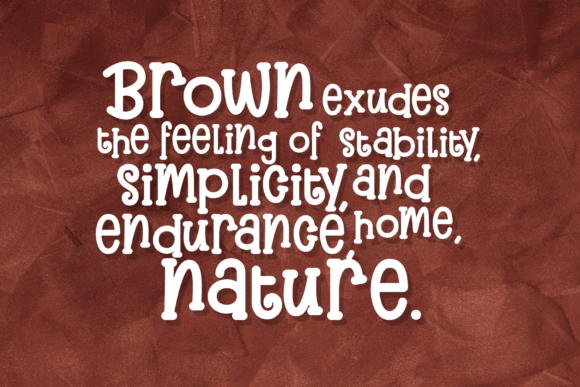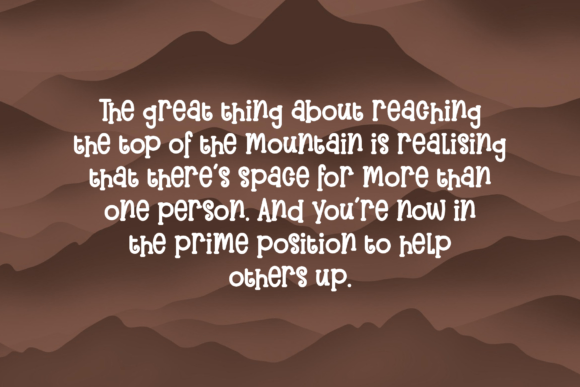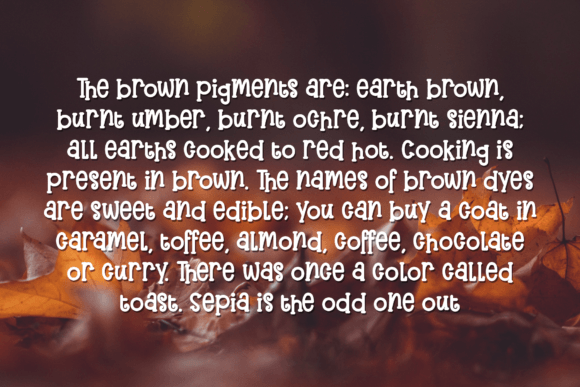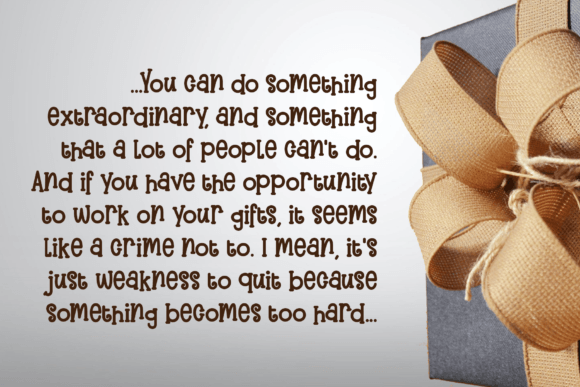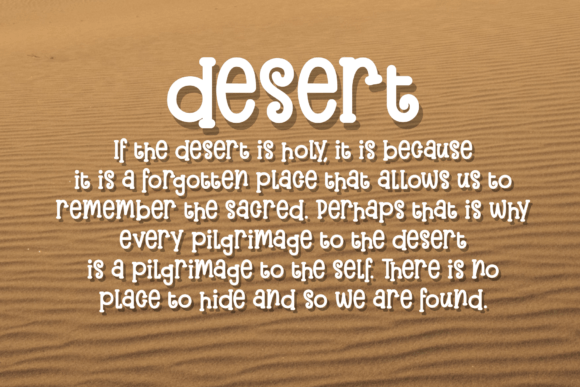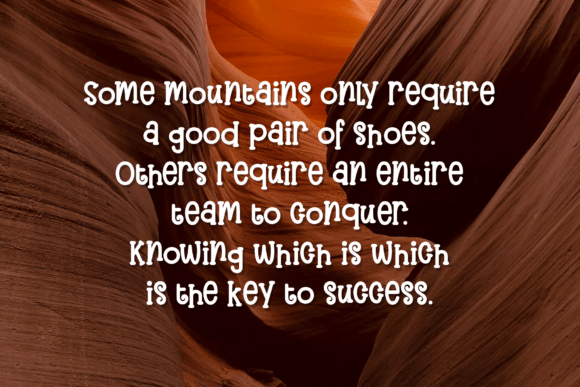
The Ultimate Bestie Font Guide: Elevate Your Designs with a Fun Handwriting Font
I’ll never forget the time I was working on a project for a boutique client, and I was struggling to find the perfect font to match their brand’s playful yet sophisticated vibe. The client had a very specific idea of what they wanted, but I just couldn’t seem to find a font that fit the bill. That was until I stumbled upon the Bestie font. With its awesome handwritten brush style and professional finish, it was love at first sight! In this article, I’ll share my experience with the Bestie font, its features, and how to make the most of it in your designs.
What is Bestie Font?
Bestie is a fun handwriting font with an awesome handwritten brush style. It’s a professional version which was complicated hand-made and computer-generated graphics, and various revisions. The font features clean lines and sharp edges, making it perfect for creating posters, web graphics, game graphics, t-shirts, videos, signs, logos, and more.
- ✨ The font has a cute feel that suits many industries, such as architecture, bakery, boutique, cooking, craft, drink brands, florist, publishing, and more!
- ✅ The different weights make it a stellar option for branding, and web use looks really beautiful with condensed spacing.
- ✅ The font is versatile and can be used for a wide range of design projects.
⚠️ One thing to note is that the font may not be suitable for very formal or traditional designs, as it has a playful and handwritten feel. Additionally, some users may find that the font requires a bit of tweaking to get the kerning just right.
🤔 Another thing to consider is that the font may not be the best choice for very long blocks of text, as it can be a bit more difficult to read than a traditional serif or sans-serif font.
The Bestie font was designed with the intention of creating a fun and playful handwriting font that could be used for a wide range of design projects. The designer, who wishes to remain anonymous, was inspired by the beauty of handwritten brush script and wanted to create a font that captured the essence of this style.
Q: What is the Bestie font?
A: The Bestie font is a fun handwriting font with an awesome handwritten brush style.
Q: What can I use the Bestie font for?
A: You can use the Bestie font for a wide range of design projects, including posters, web graphics, game graphics, t-shirts, videos, signs, logos, and more.
Q: Is the Bestie font suitable for formal designs?
A: No, the Bestie font has a playful and handwritten feel, making it more suitable for informal designs.